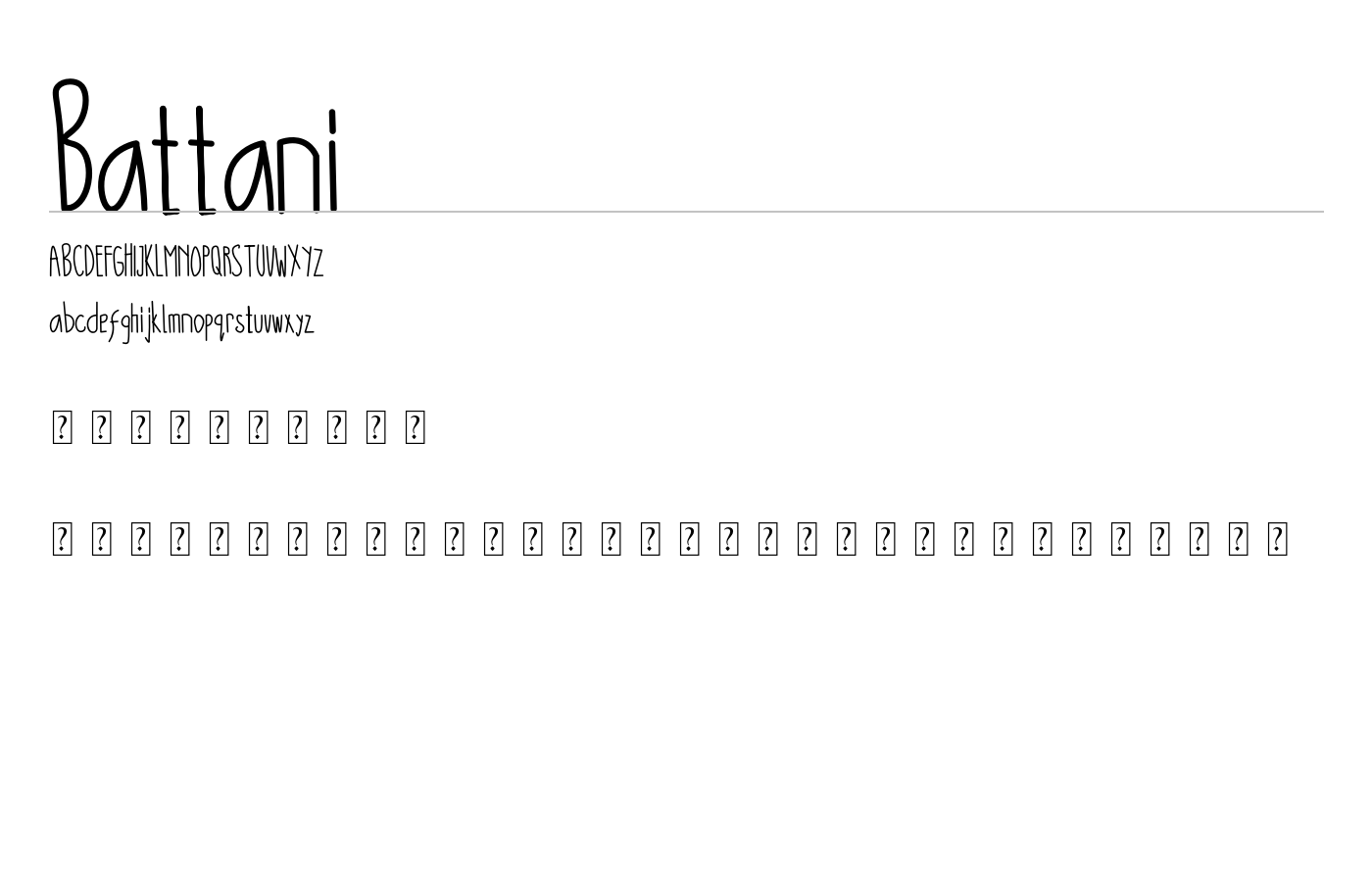
Battani is a playful and whimsical handwritten sans serif font characterized by its tall, narrow letterforms and irregular strokes that give it a casual, hand-drawn feel. Its light weight and elongated shapes make it ideal for creative projects, children’s content, and informal branding, where a friendly and approachable tone is desired. This font works well in headlines and display uses, adding personality and charm to designs that aim to be unique and inviting.
Battani Font
About Battani Font